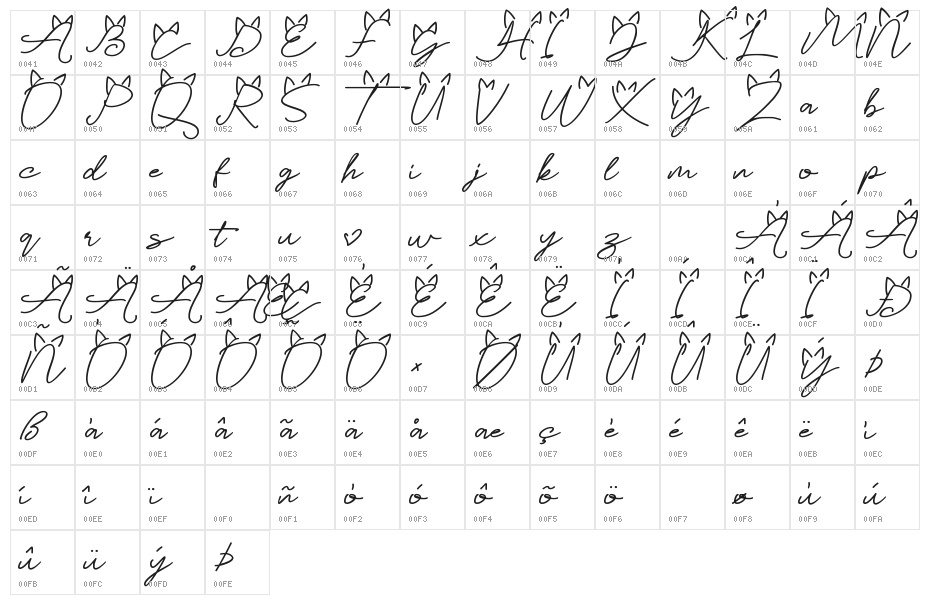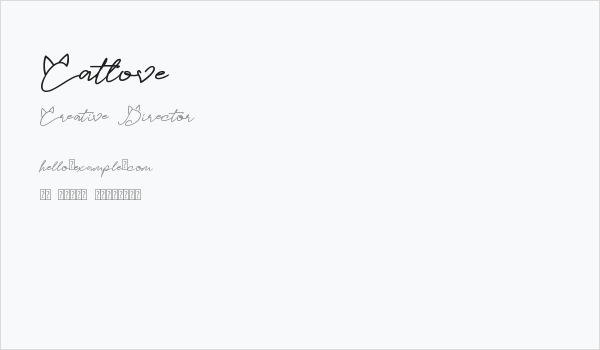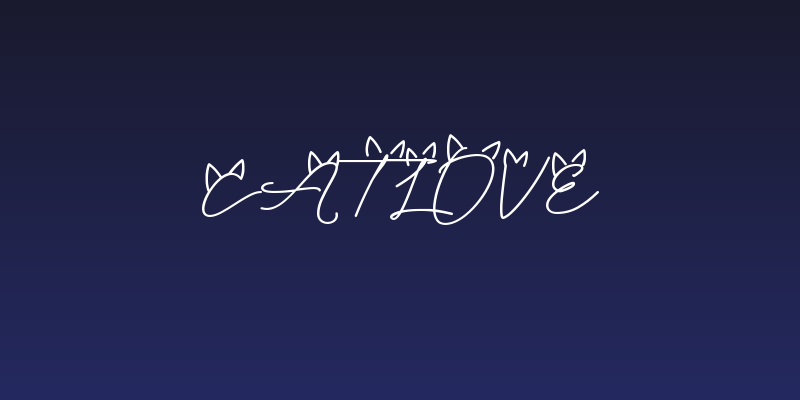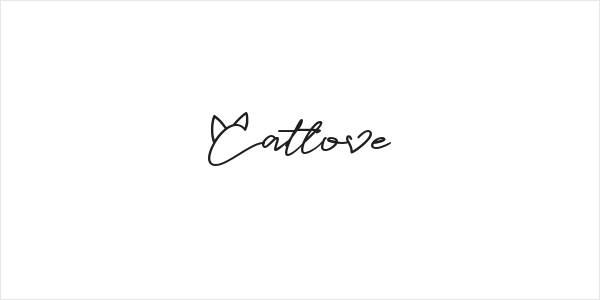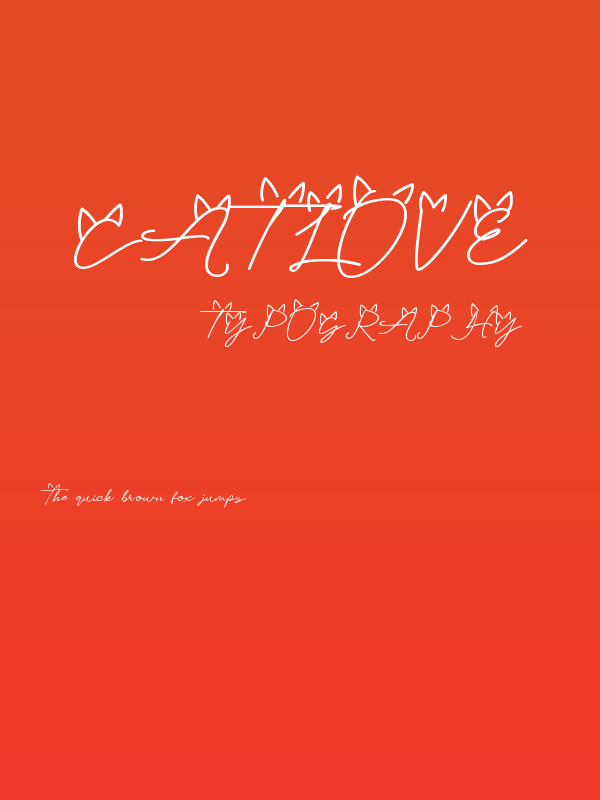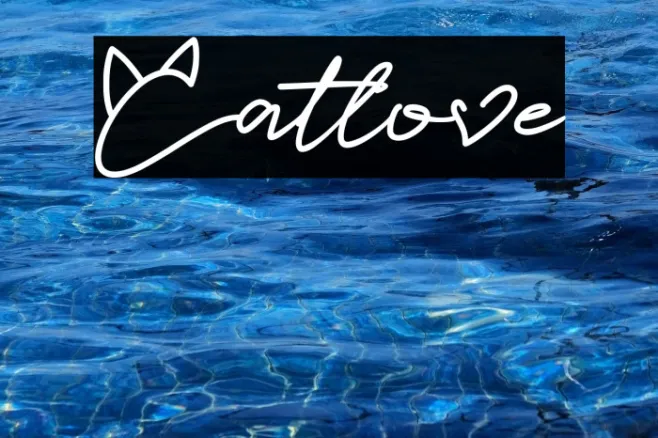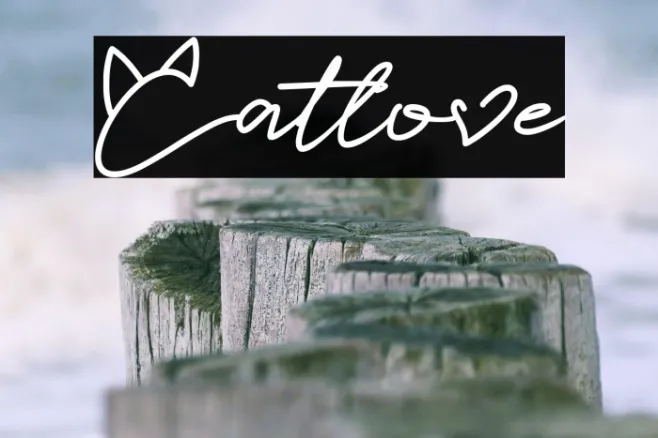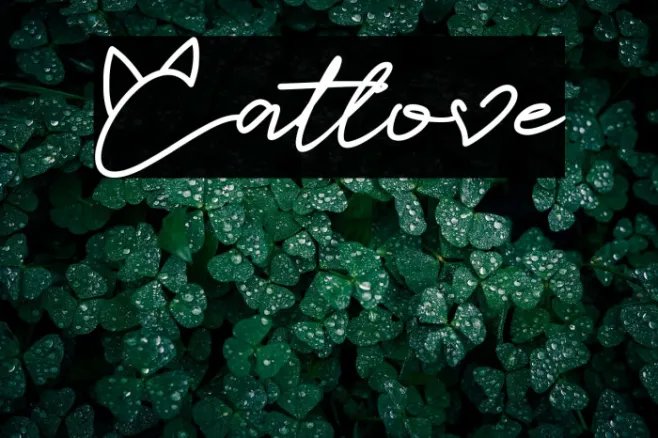
Catlove Font
Catlove Description
This font features a playful and whimsical design, incorporating cat ear motifs into the uppercase letters, adding a unique and charming touch. The script style is fluid and elegant, with a handwritten feel that is both casual and sophisticated. The lowercase letters maintain a smooth and consistent flow, enhancing readability while retaining a sense of creativity. The overall design is balanced, with moderate spacing that ensures clarity without sacrificing style. This font is perfect for projects that require a fun and distinctive look, appealing to both cat lovers and those seeking a lighthearted aesthetic.
| Proposed Projects | Ideal for greeting cards, children's book covers, playful branding, and pet-related products. |